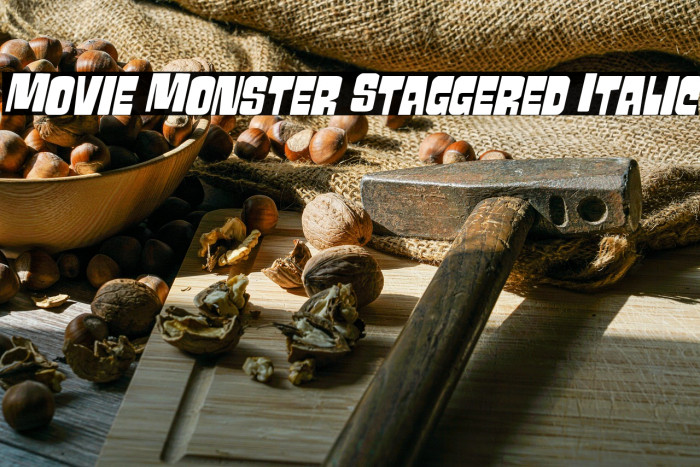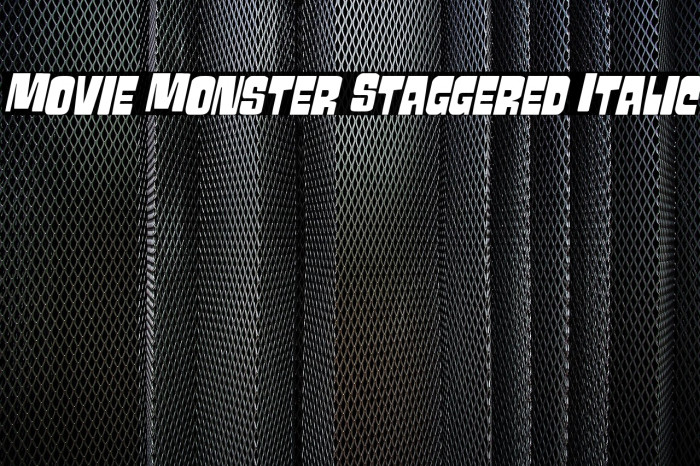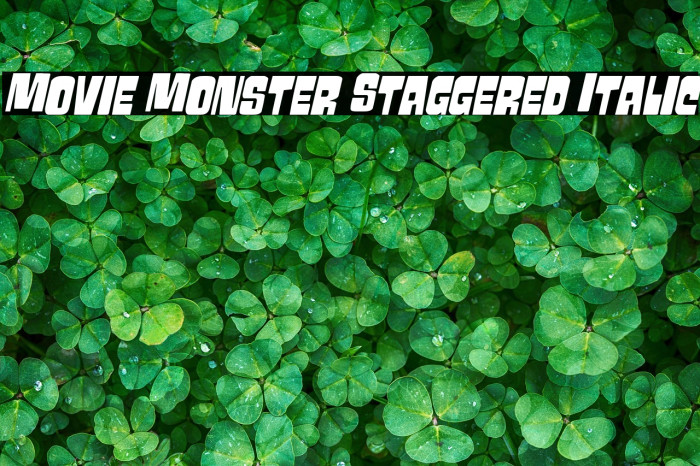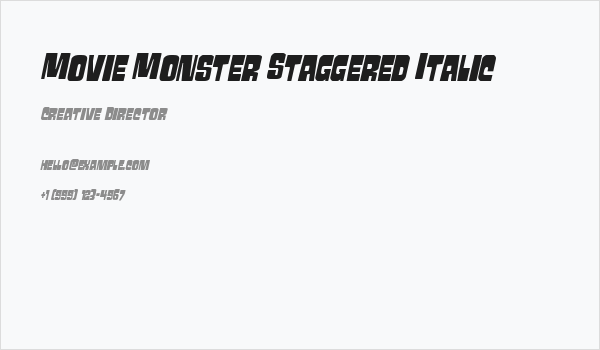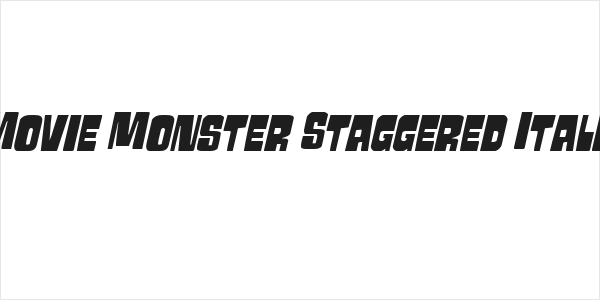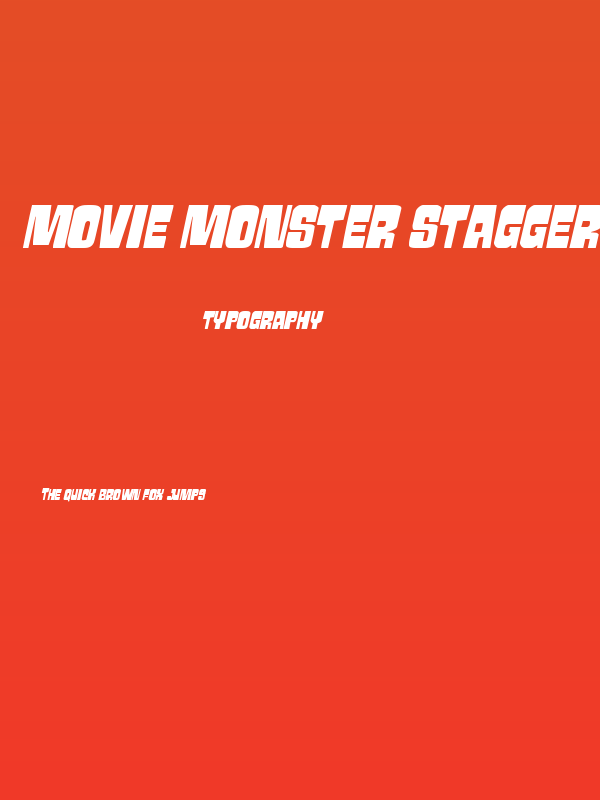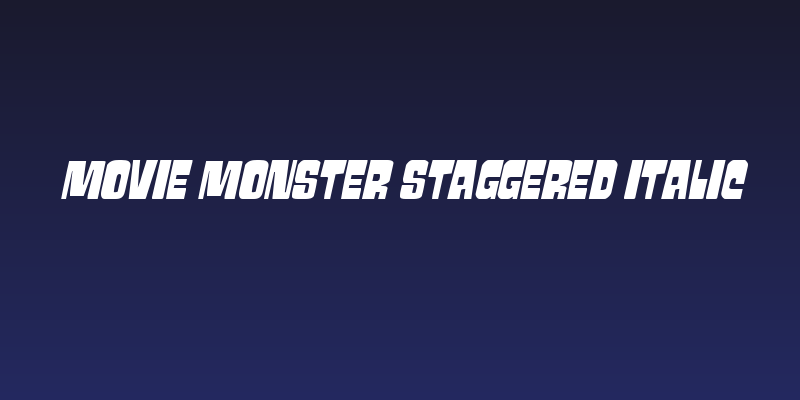
Movie Monster Staggered Italic Font
Movie Monster Staggered Italic Description
This font features a bold and dynamic style with a staggered italic slant, giving it a sense of movement and energy. The characters are wide and blocky, with sharp angles and a strong presence. The uppercase and lowercase letters maintain a consistent weight, contributing to a cohesive look. Numbers and special characters are designed to match the boldness and angularity of the alphabet, ensuring uniformity across all glyphs. The font's distinct style makes it ideal for attention-grabbing designs.
| Proposed Projects | Perfect for movie posters, video game titles, sports branding, and any project needing a bold, impactful typeface. |